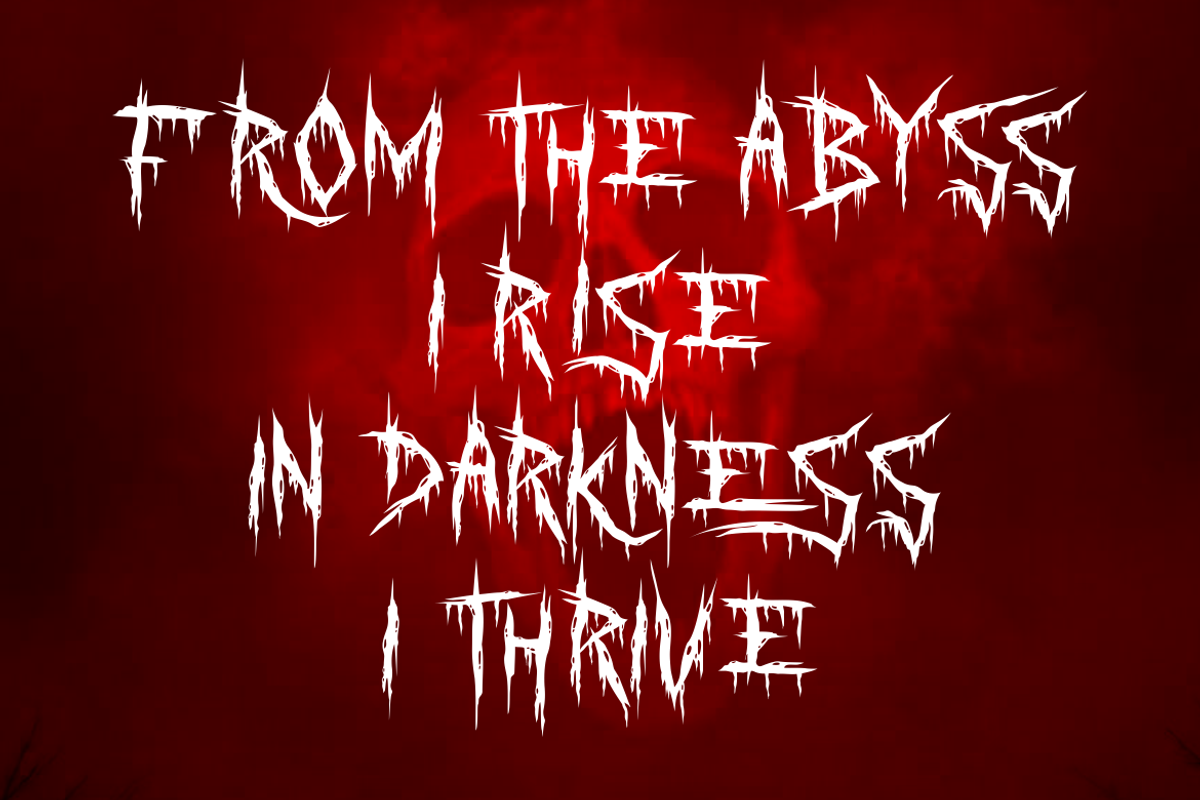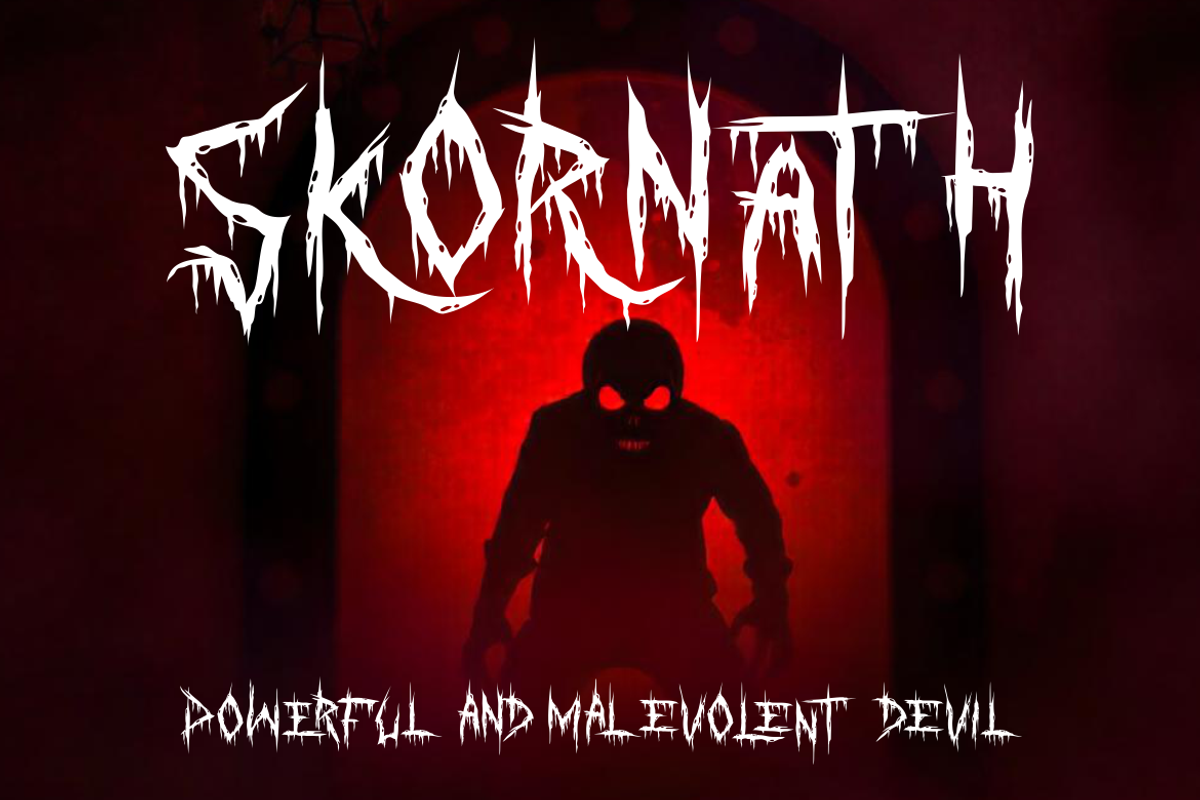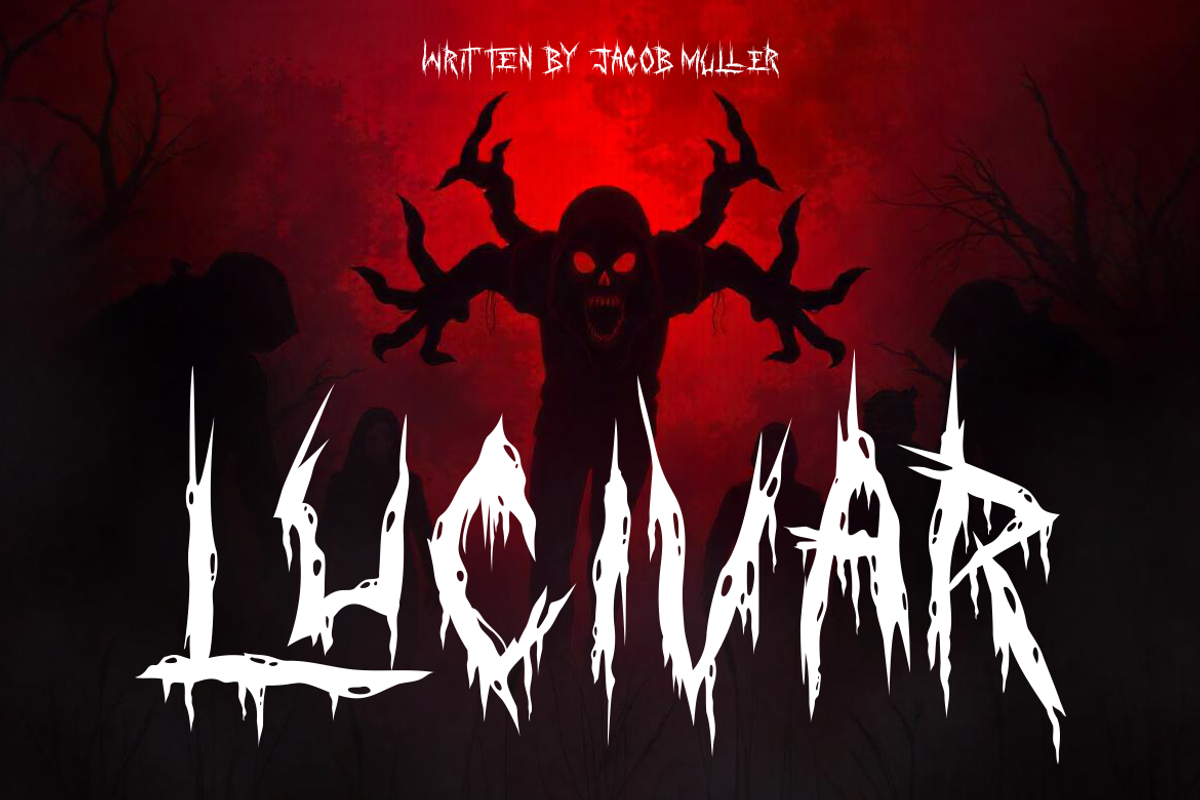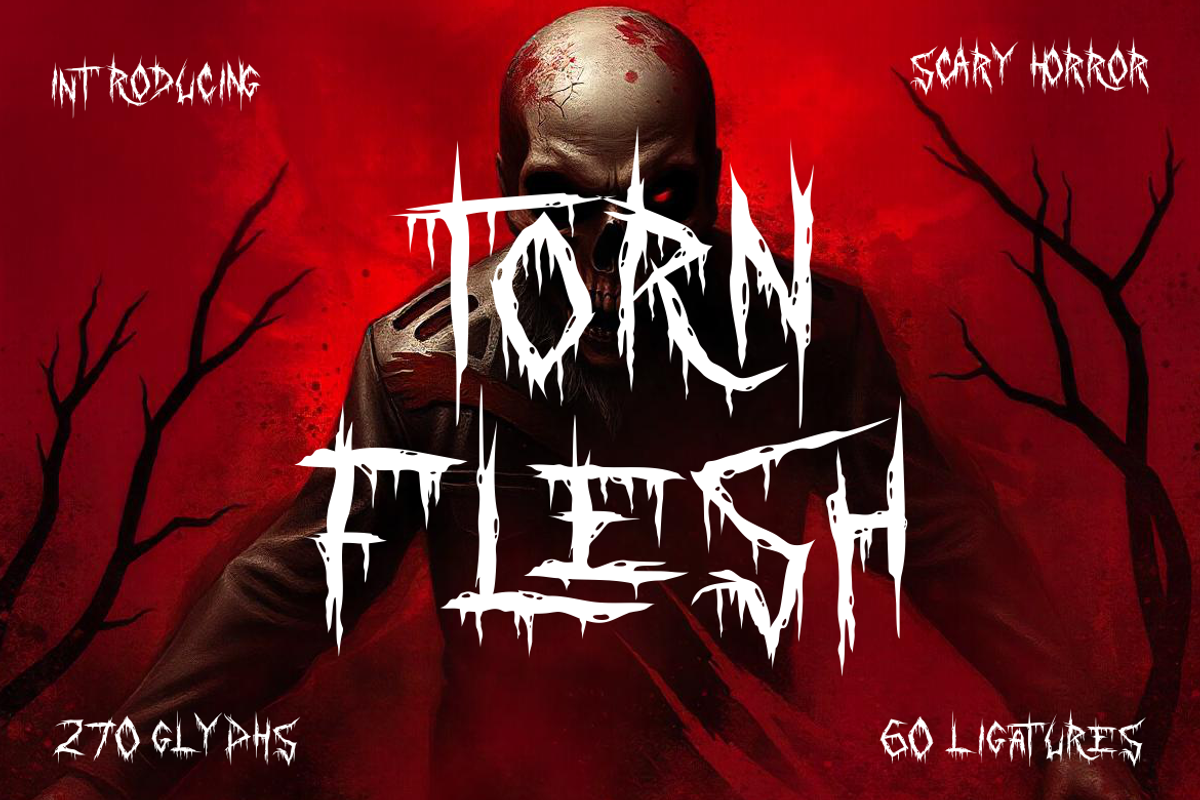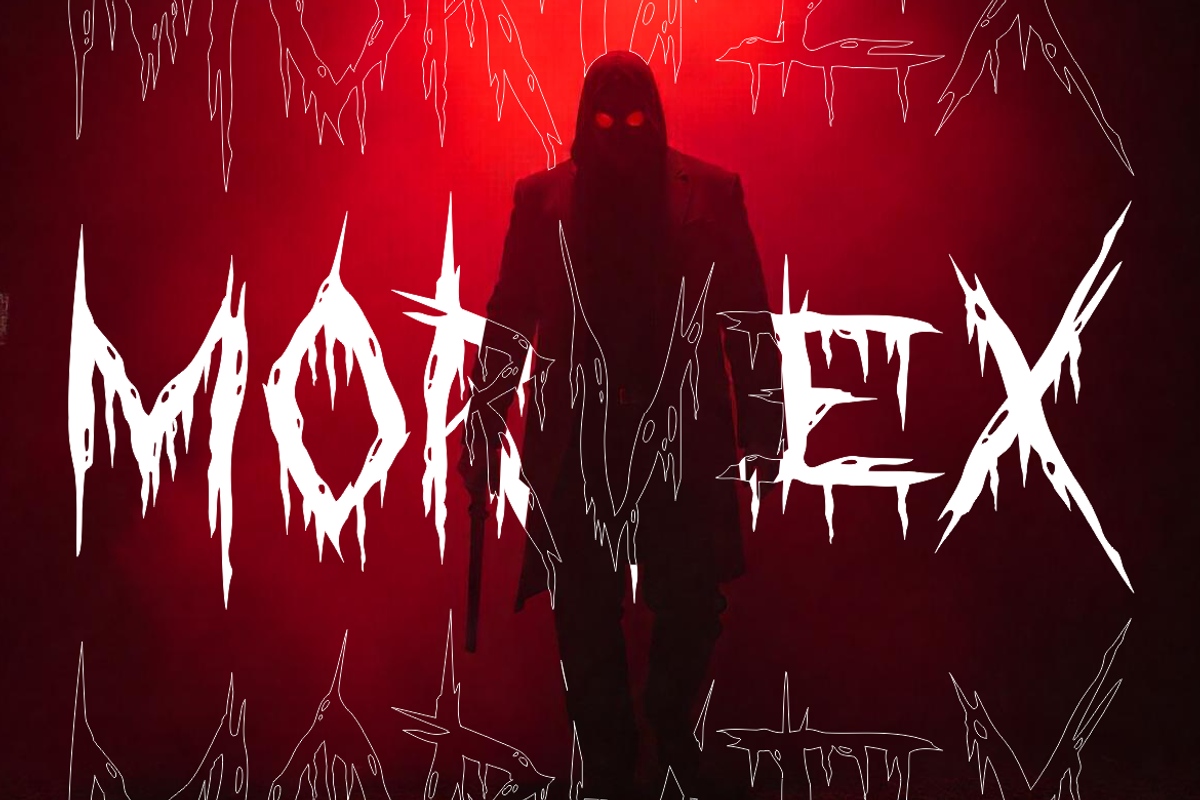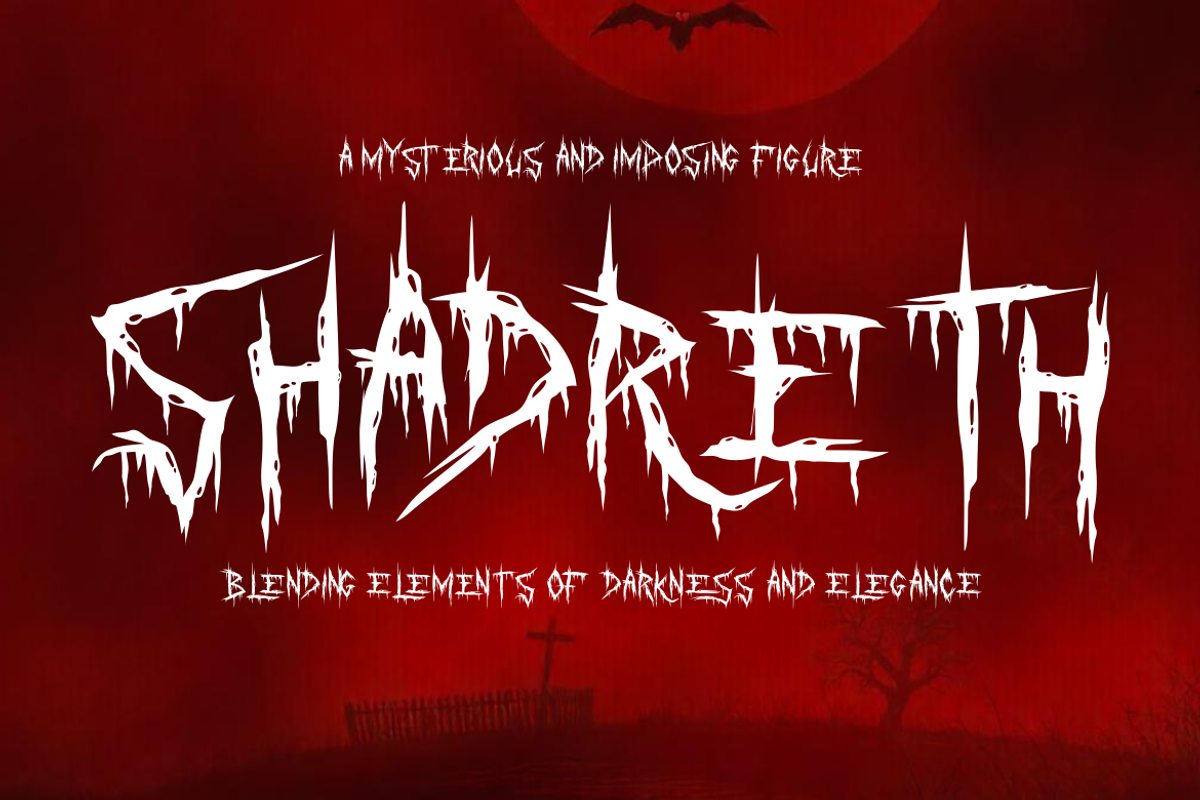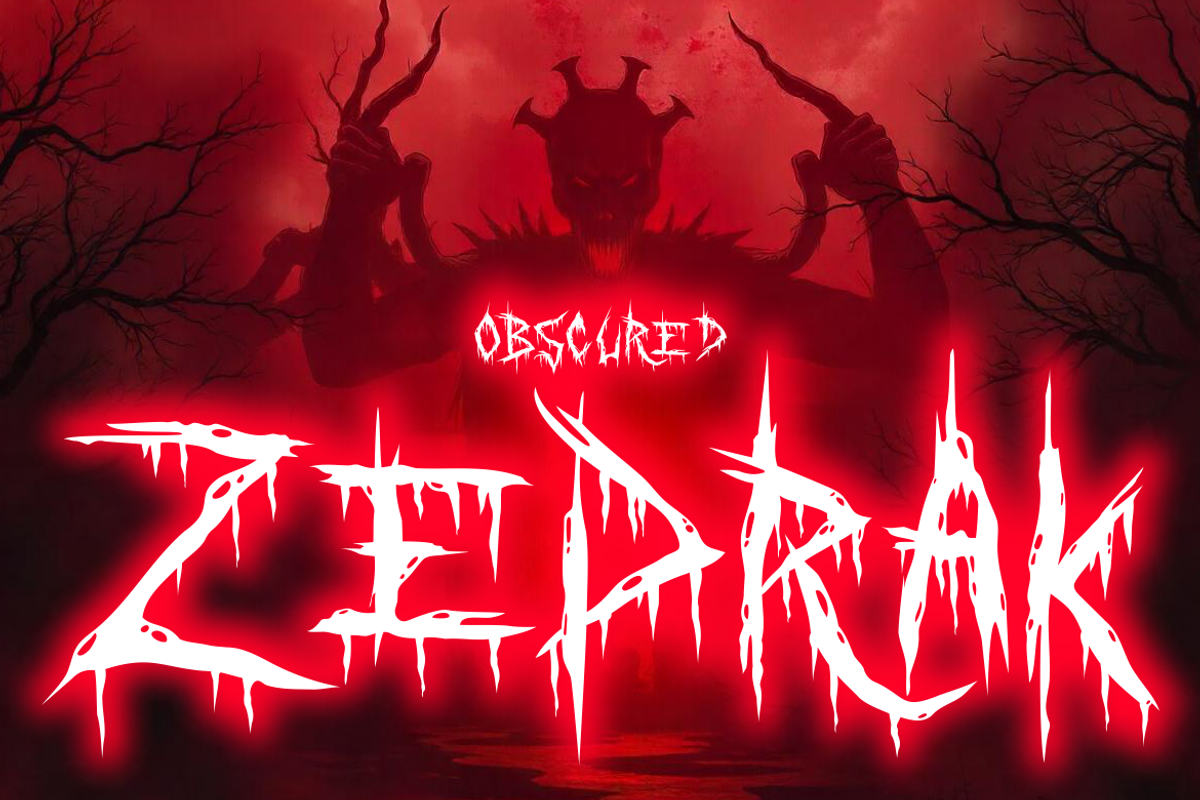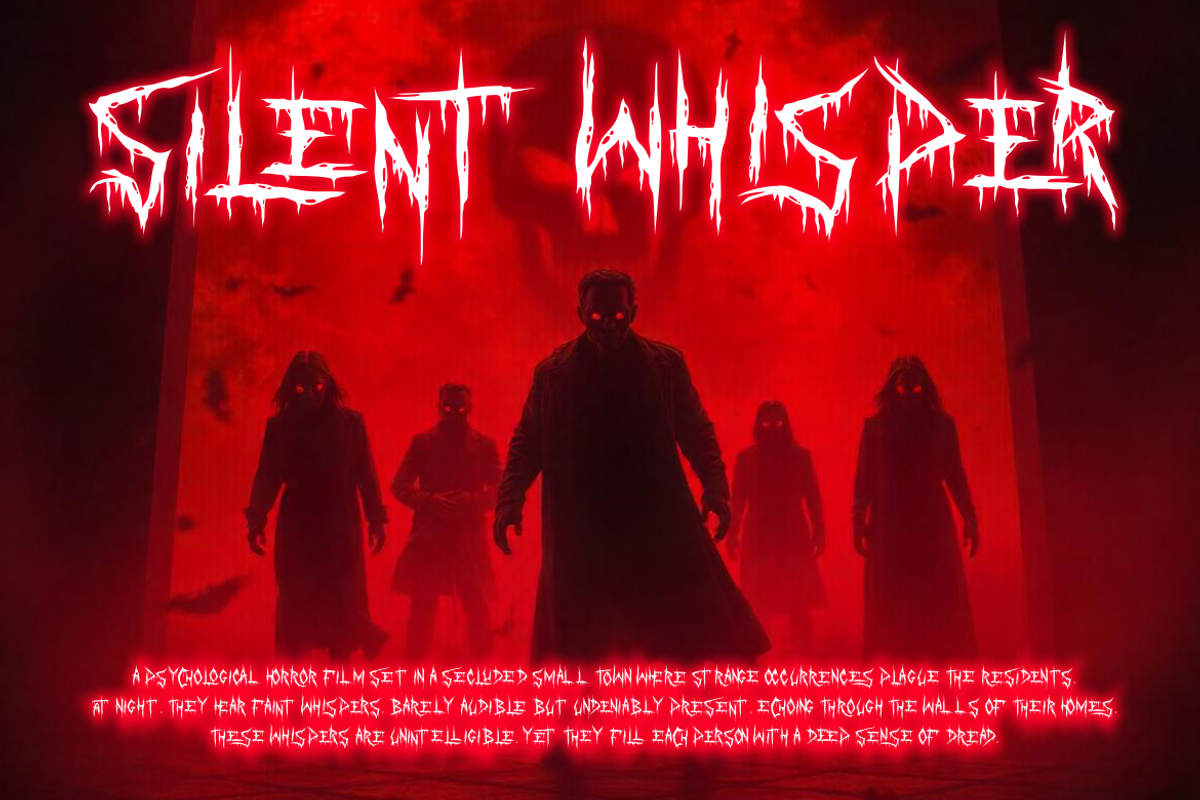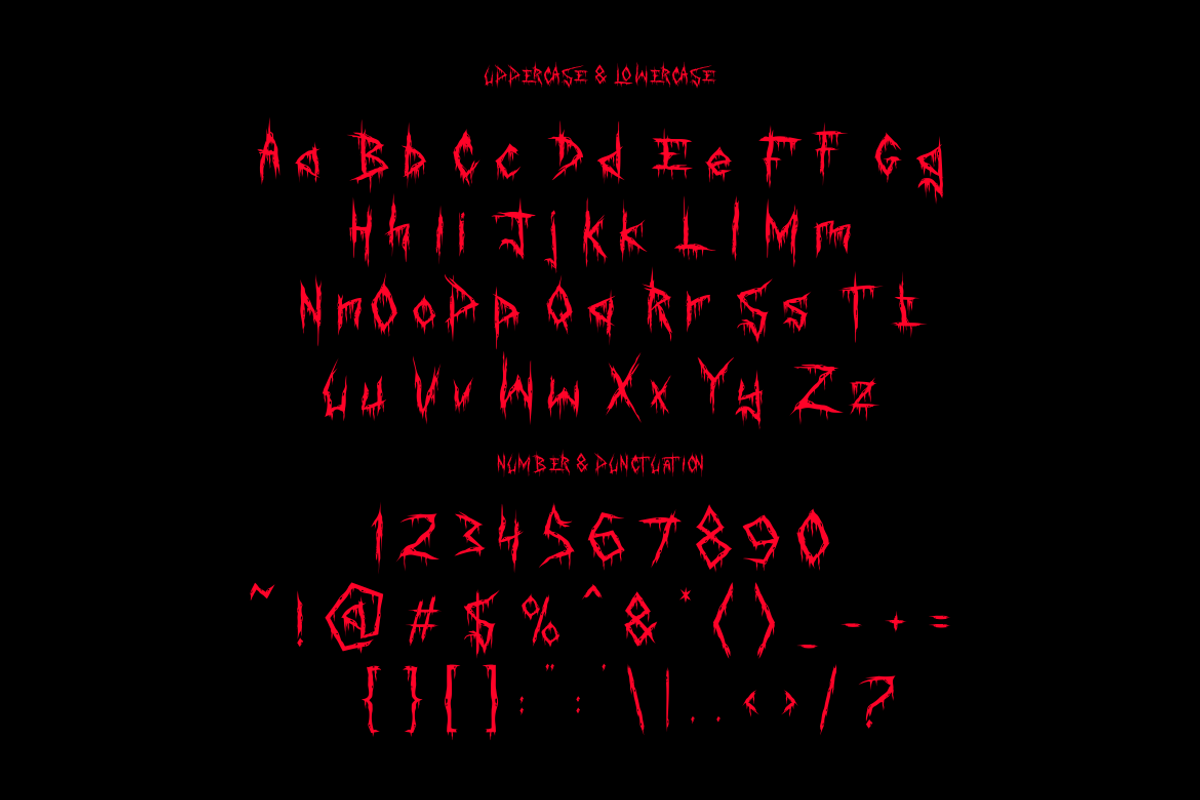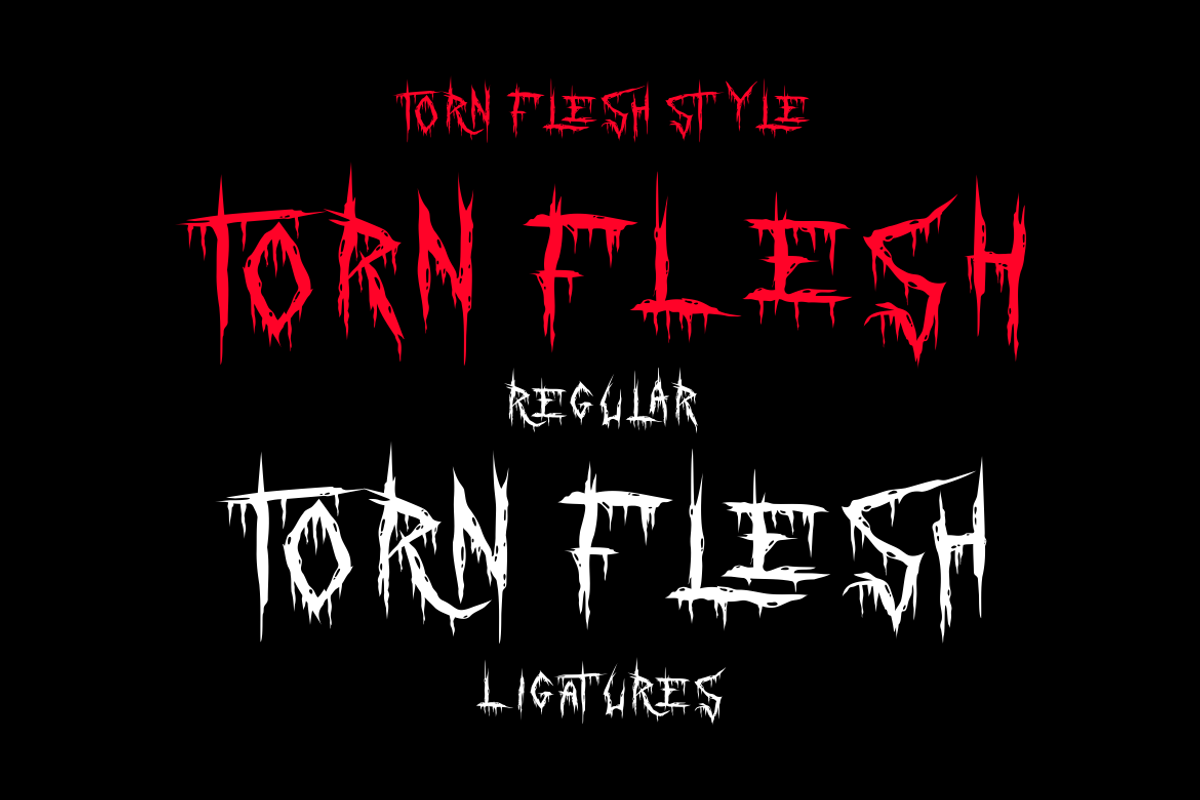
Torn Flesh - Scary Horror Font
Introducing Torn Flesh - Scary Horror Font, a chilling typeface designed to evoke terror and suspense. This font's jagged, distressed lettering resembles claw marks, making it perfect for horror-themed designs that need a gruesome, hand-torn look. The sharp edges and uneven strokes capture the essence of horror and fear, creating a truly menacing style. The font pairs well with dark, blood-red backdrops, like the one in the example image, which amplifies its spooky, haunted aesthetic. Torn Flesh is ideal for Halloween projects, movie posters, or any design that aims to elicit a spine-chilling atmosphere.
Torn Flesh comes with 270 glyphs and 60 ligatures, providing a range of creative options for designers looking to add a personalized horror touch. It's a powerful choice for logos, branding, or titles that need to scream horror and dread. From invitation cards for Halloween parties to book covers for thrillers, this font will stand out and set the mood. Embrace the dark side of your designs with Torn Flesh, a font that’s as terrifying as it is captivating.